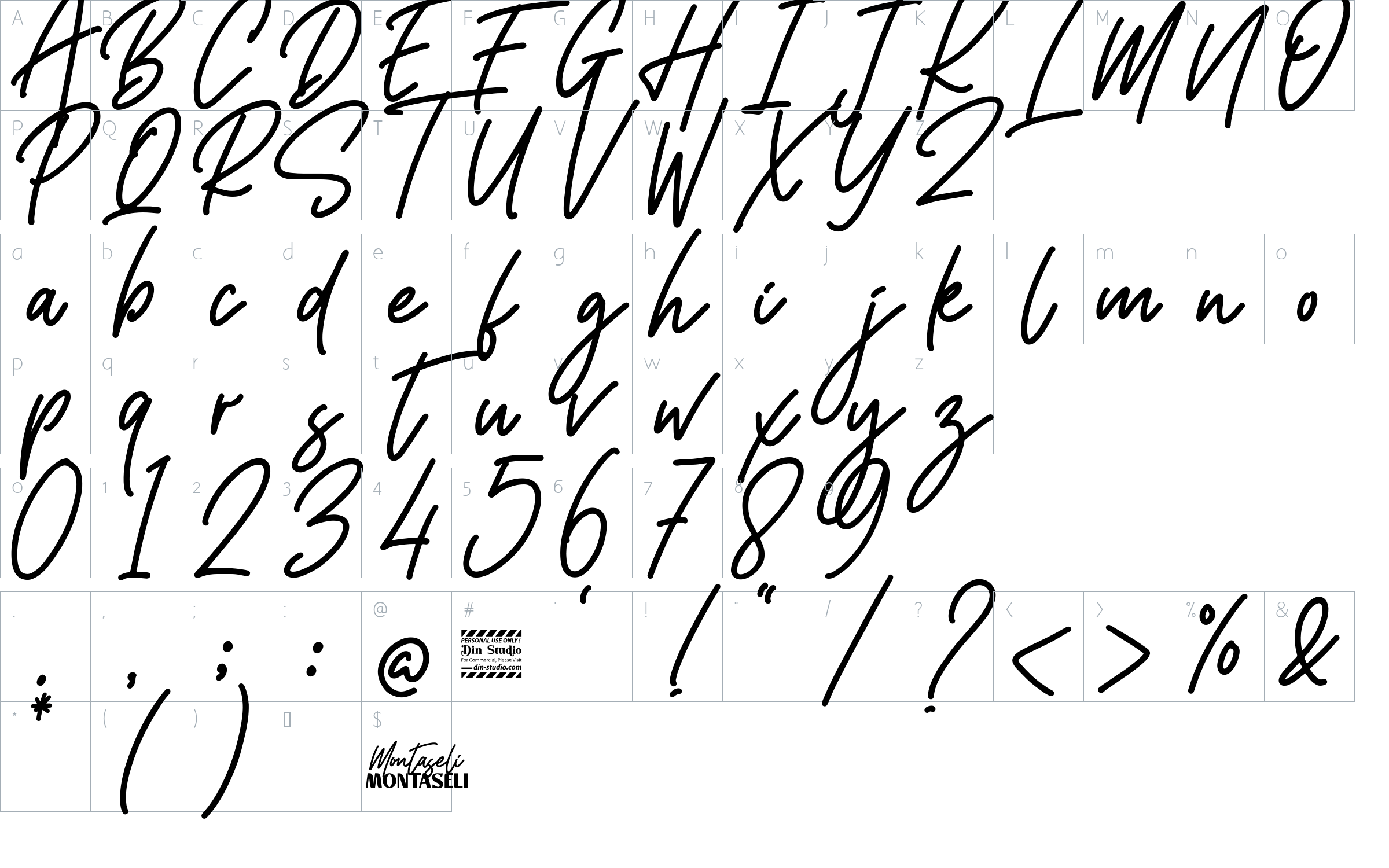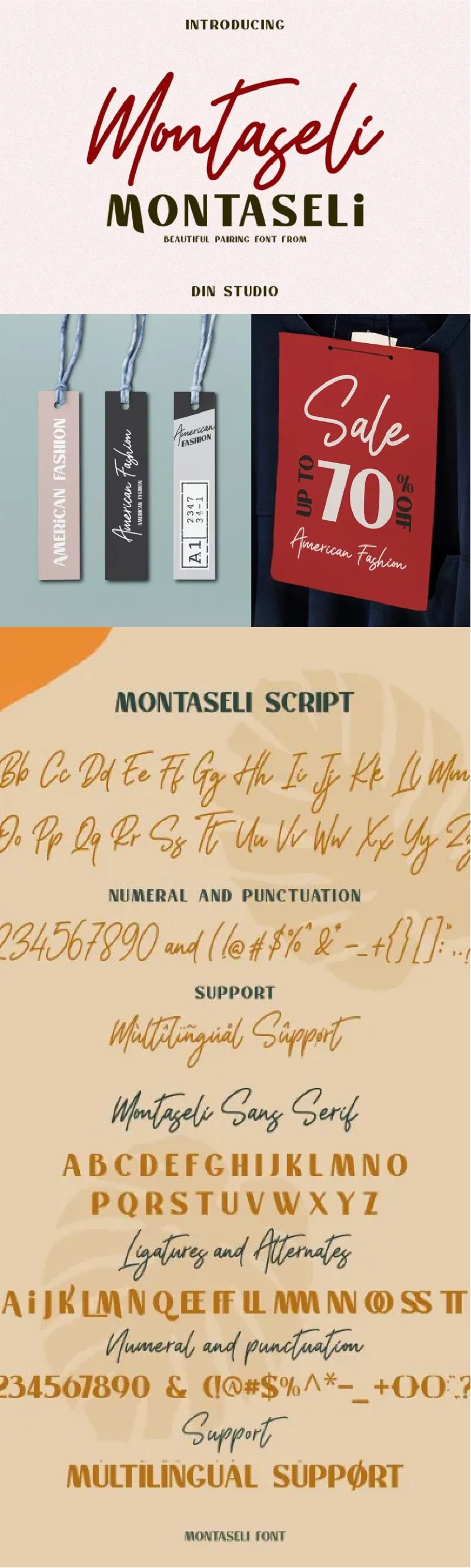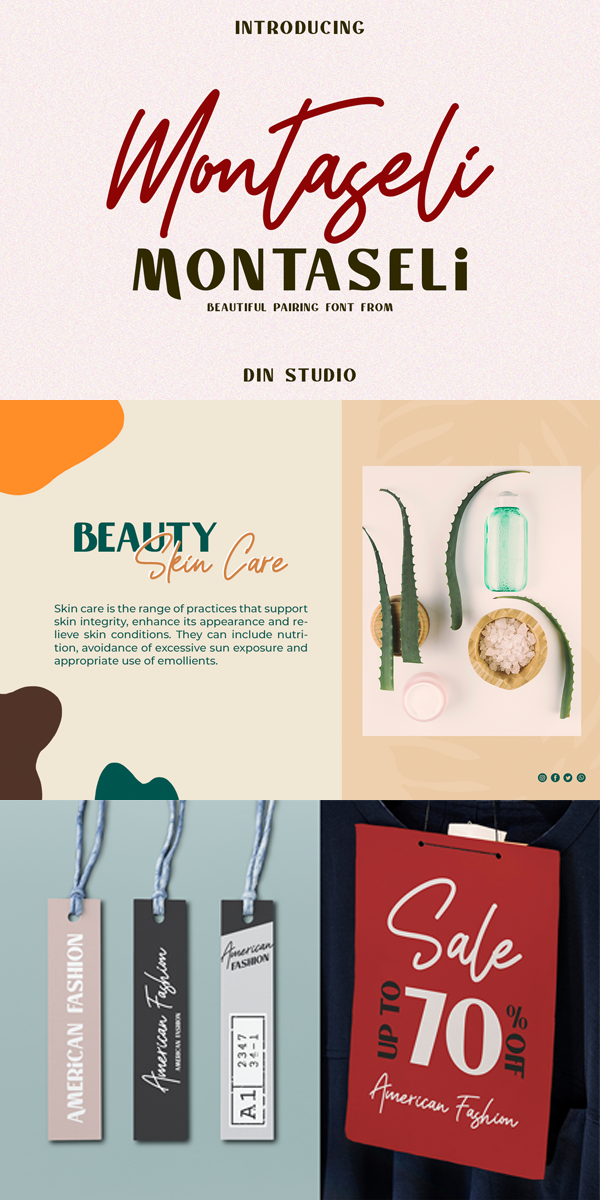
Montaseli Font
About Montaseli
Montaseli – Font Duo. It is a beautiful pairing font from Din Studio designed with a modern and bold style. The font is suitable for brandings, logos, social media campaigns, ads, book covers, cards, invitations, quotes, and more. With the combination of elegant and casual style, this font contains a full set of lowercase and uppercase letters, numerals, punctuations, and ligatures.
-16 Ligatures and Alternates